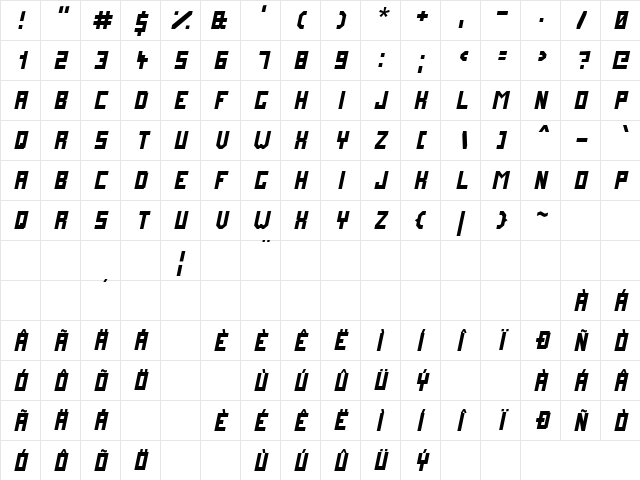
FutureMillennium Italic Font Preview
FutureMillennium Italic
FutureMillennium Italic Font Details
| Designer | Zdenek Gromnica aka FutureMillennium |
Design Context for FutureMillennium Typeface
FutureMillennium channels digital-age aesthetics through its sharp, structured letterforms — ideal for brands that want to signal innovation. The dynamic lean of this cut emphasises speed and emphasis in any layout.
Pro Tip: Try FutureMillennium with generous letter-spacing in UI labels and navigation — the geometric forms benefit from room to breathe.